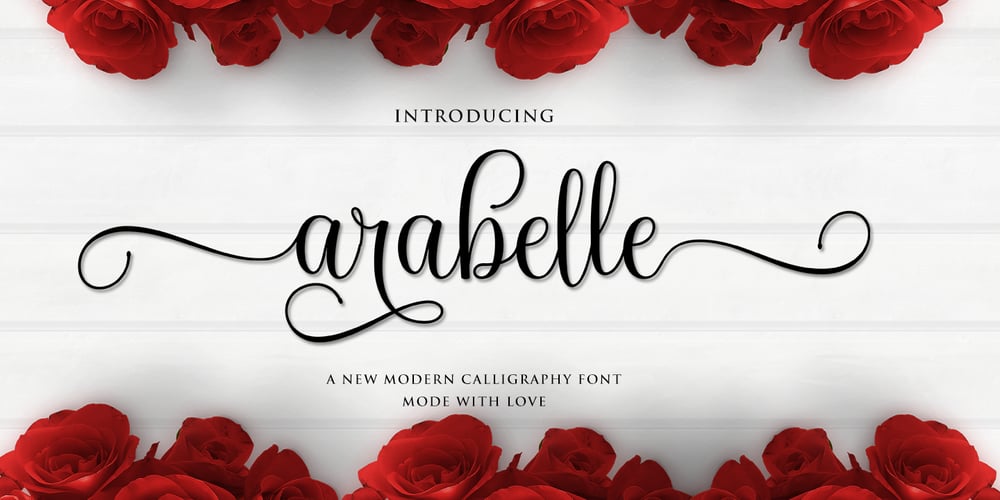
Arabelle Script
Arabelle Script font
Arabelle Script Font Family was designed by Zaki Muhammad and published by madjack.font. Arabelle Script contains 2 styles and family package options. Arabelle Script is a sweet, romantic calligraphy typeface with characters dancing along the baseline. It has a casual yet elegant touch. Can be used for various purposes such as logos, wedding invitations, headers, t-shirts, letterheads, signboards, labels, news, posters, badges etc.The font includes OpenType features with alternative styles, ligatures, and multiple language support.To enable OpenType Stylistic alternates, you will need a program that supports OpenType features such as Adobe Illustrator CS, Adobe Indesign & CorelDraw X6-X7, Microsoft Word 2010 or later versions.There are additional ways to alternate / swash, using the Character Map (Windows), Nexus Font (Windows), Font Book (Mac) or a software program like PopChar (for Windows and Mac).How to access all alternative characters, using Windows Character Map with Photoshop: https://www.youtube.com/watch?v=Go9vacoYmBwHow to access all alternative characters using Adobe Illustrator:http://youtu.be/iptSFA7feQ0How to use a stylish font set in Microsoft Word 2010 or later versions:https://youtu.be/x1A_ilsBsGs